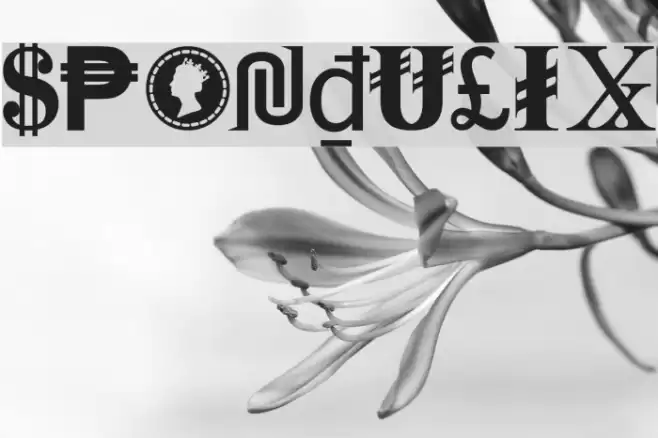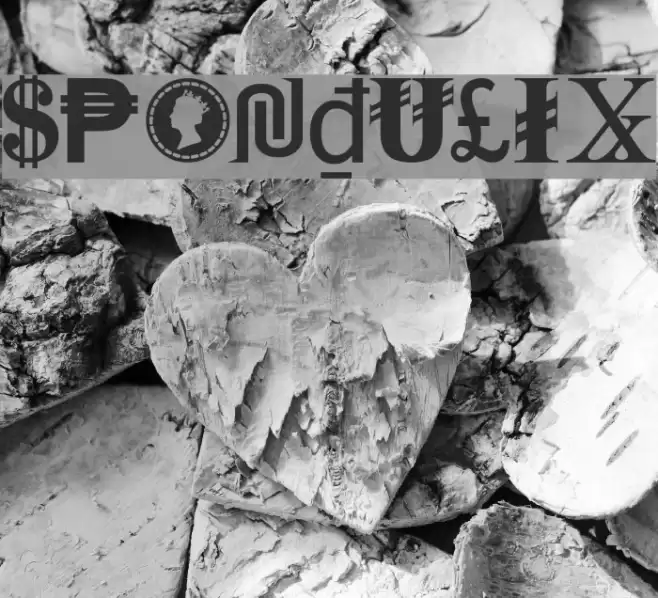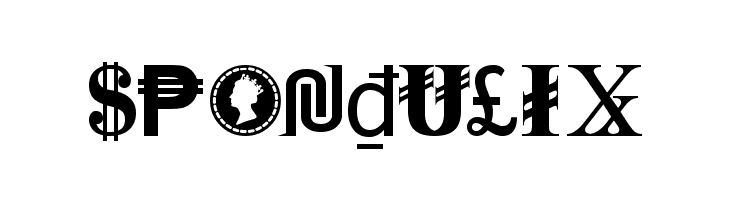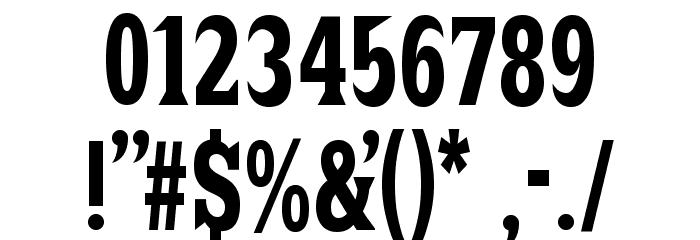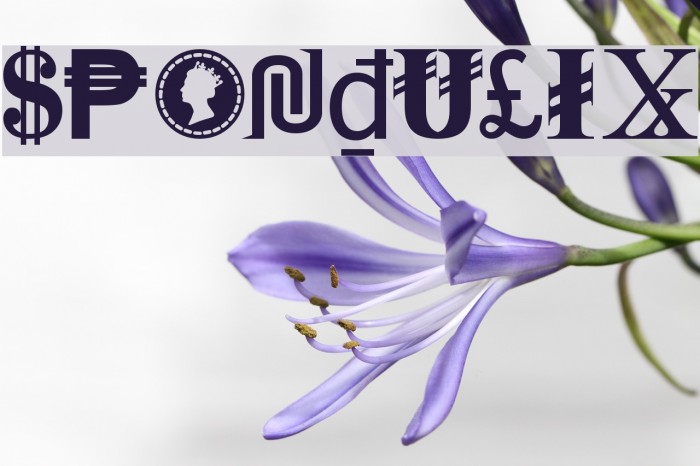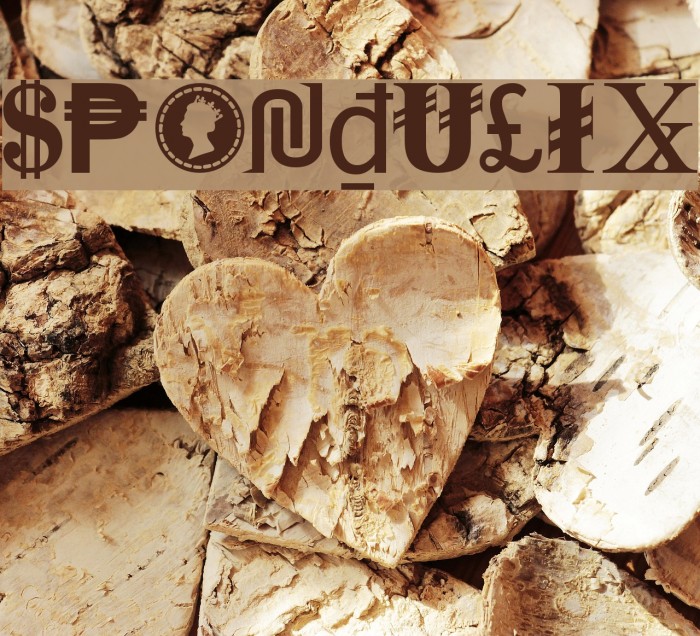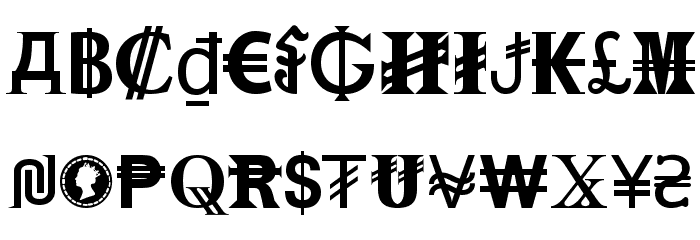
Spondulix Font
Spondulix Description
This font features a bold and striking design with a unique blend of modern and decorative elements. The characters are heavily stylized, with intricate details and overlapping lines that create a sense of movement and complexity. The uppercase letters are particularly distinctive, with some incorporating currency symbols and other graphic elements. The numbers and special characters maintain the bold aesthetic, ensuring consistency across all glyphs. This font's high contrast and dramatic style make it ideal for eye-catching designs.
A bold, decorative font with high contrast and intricate details from Decorative fonts.
- Proposed Projects: Ideal for branding, poster design, and any project requiring a bold, attention-grabbing typeface.
- Overall Style: Modern, Decorative